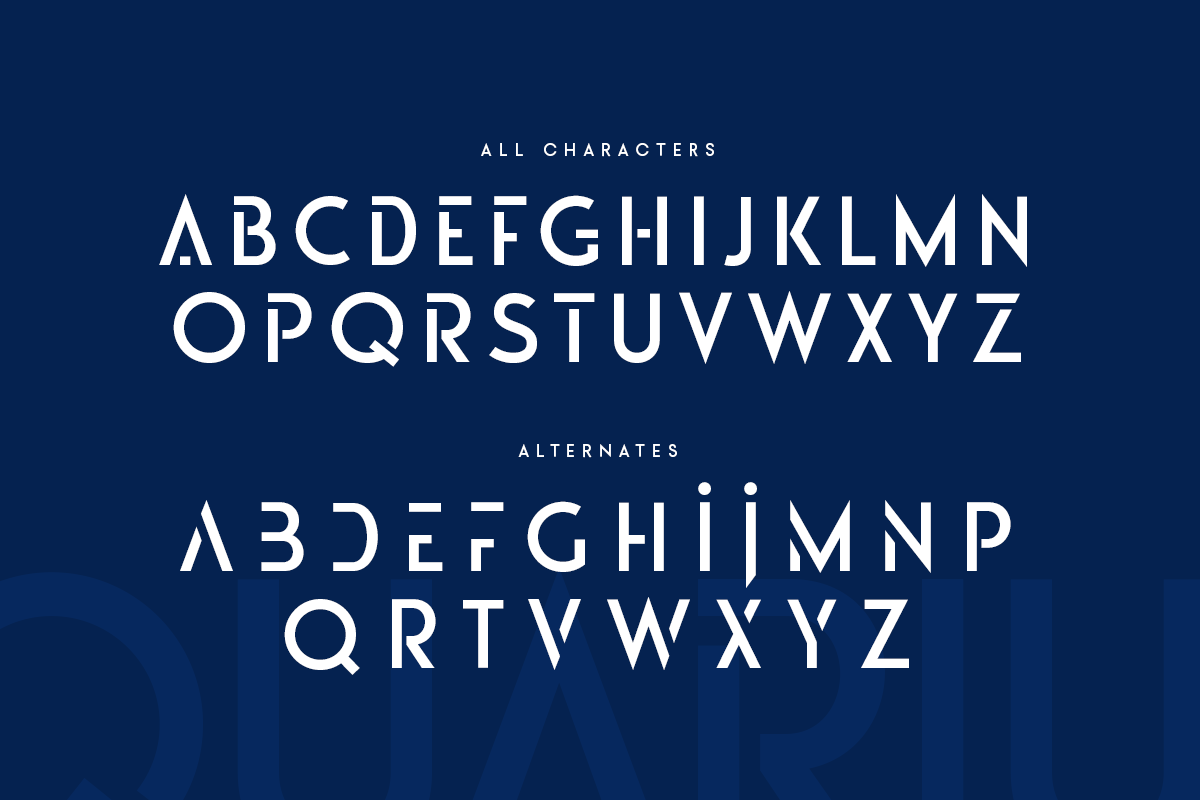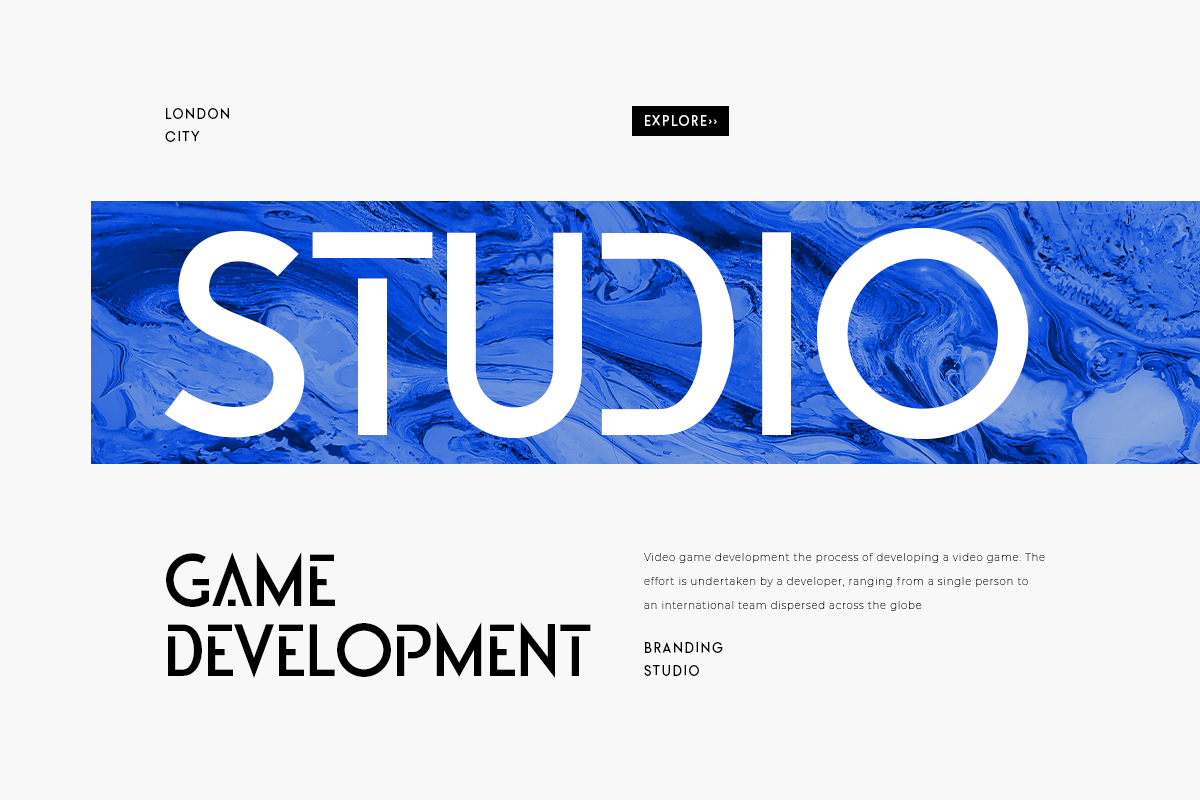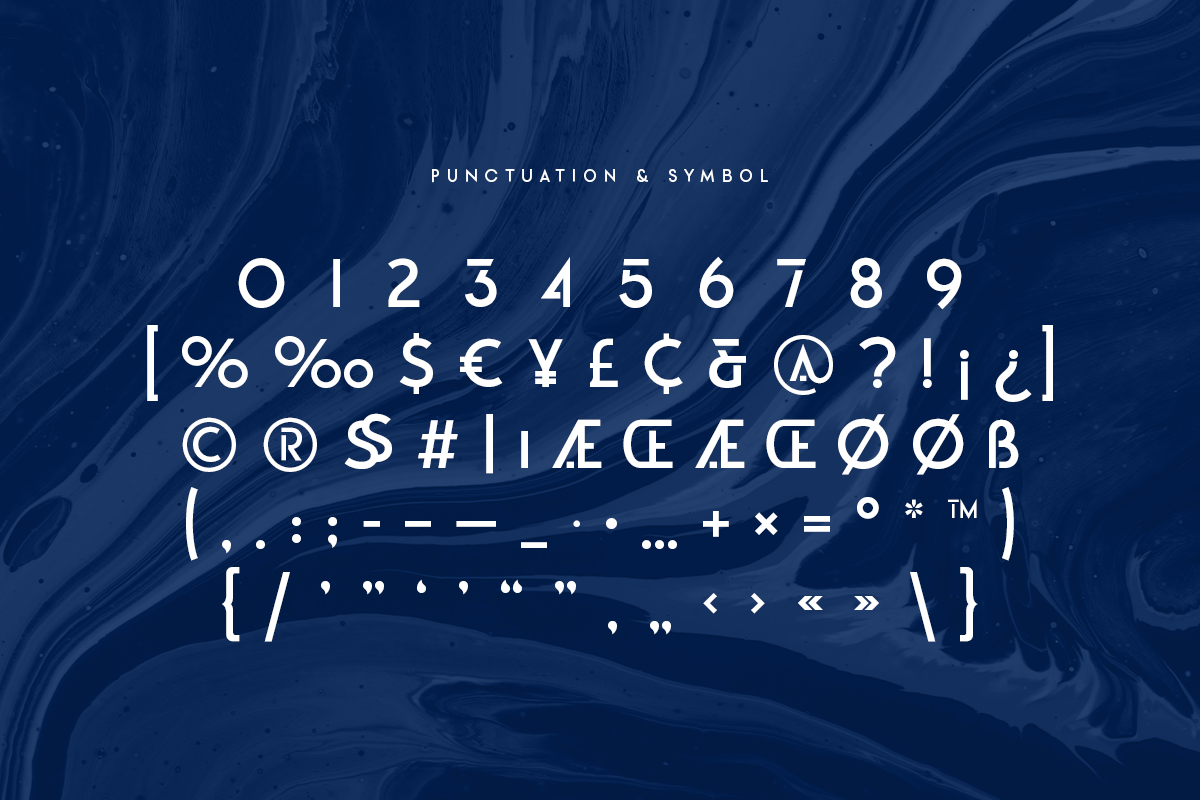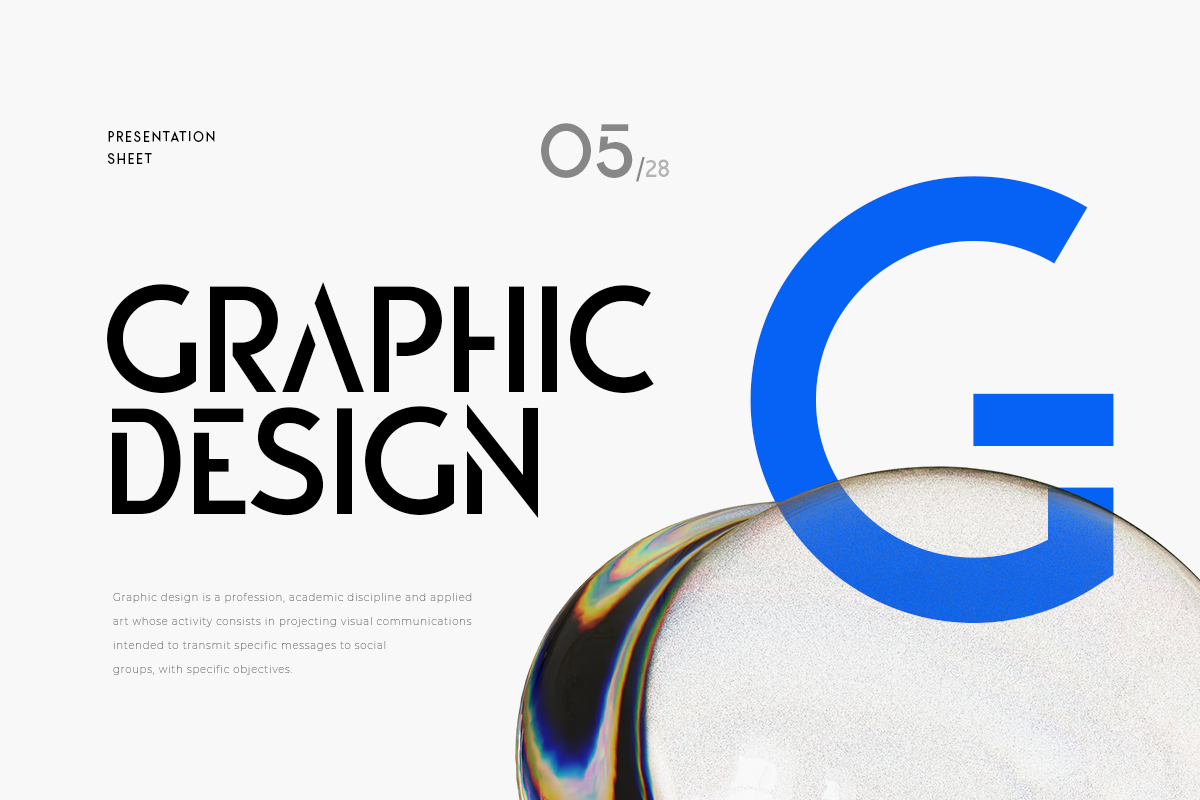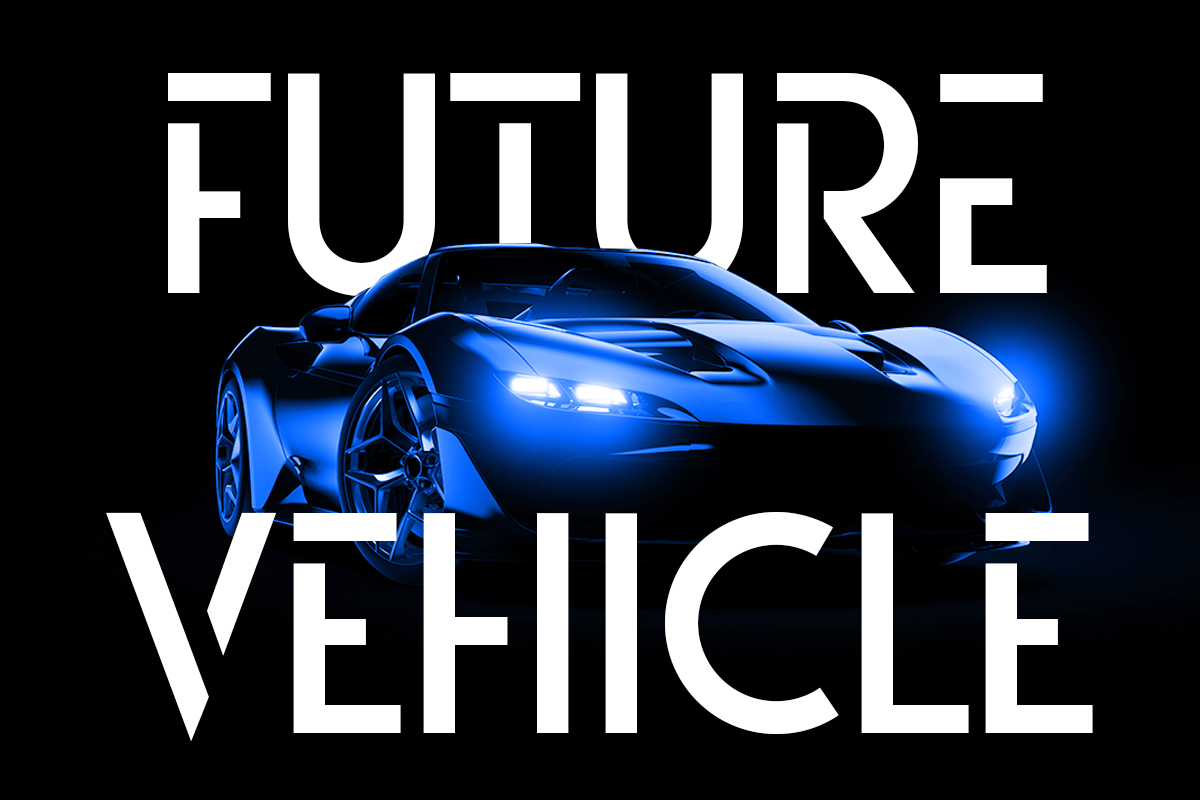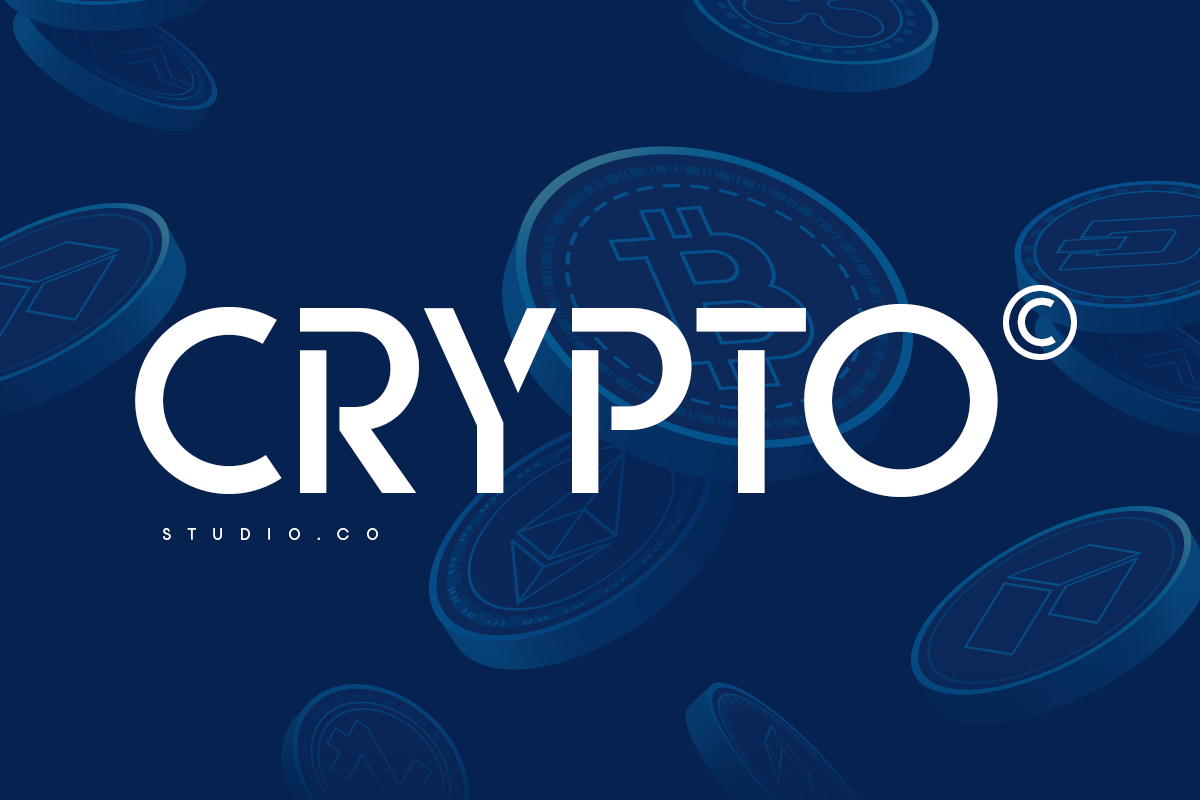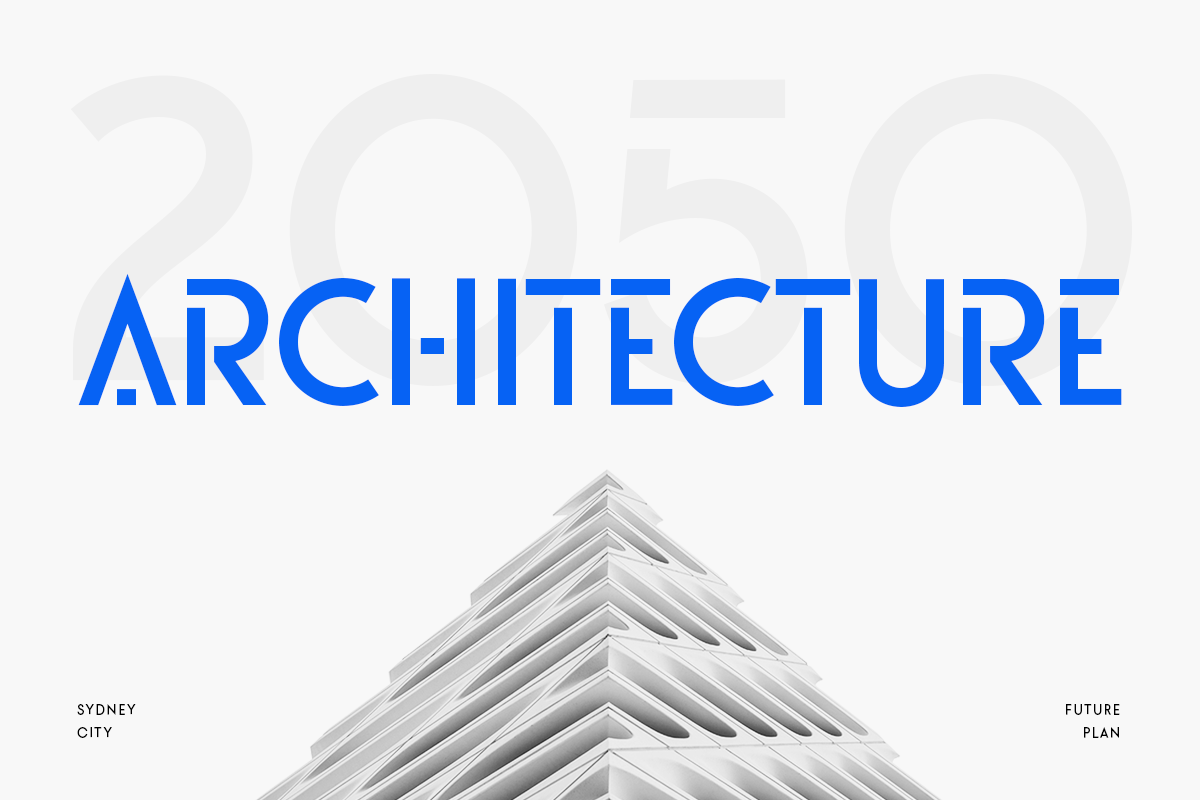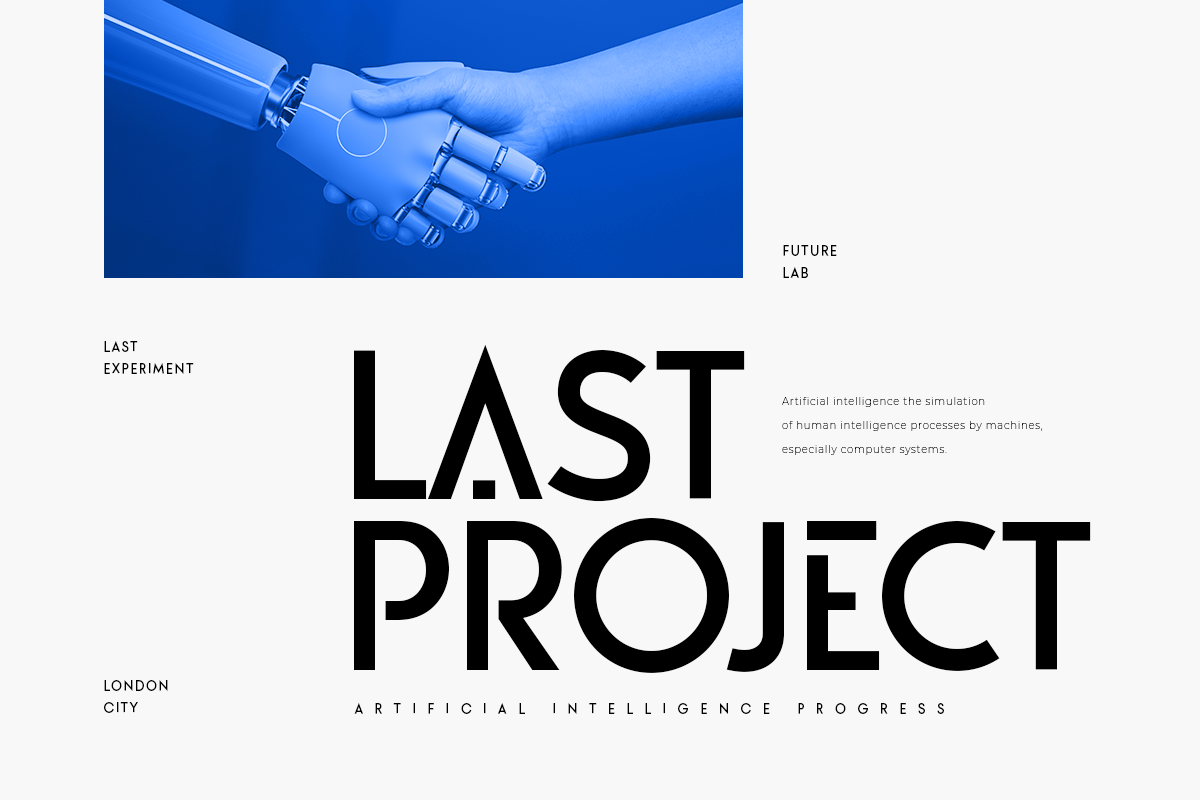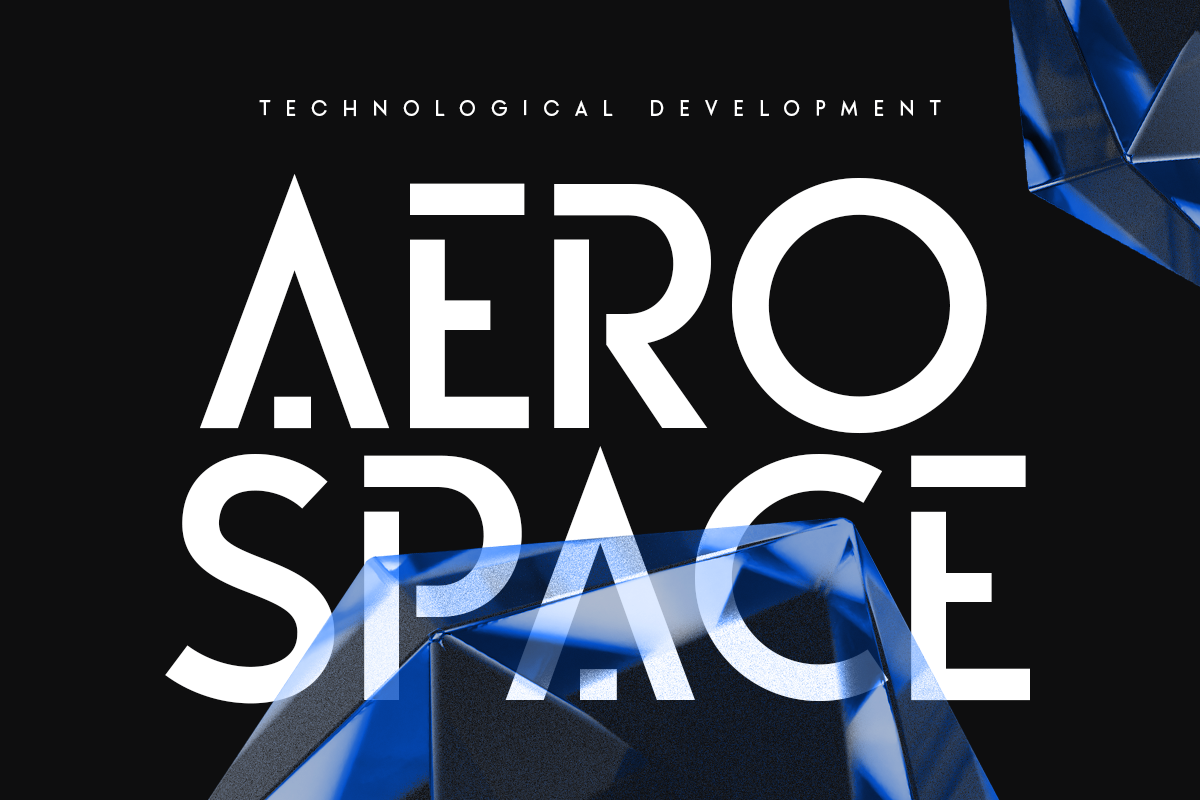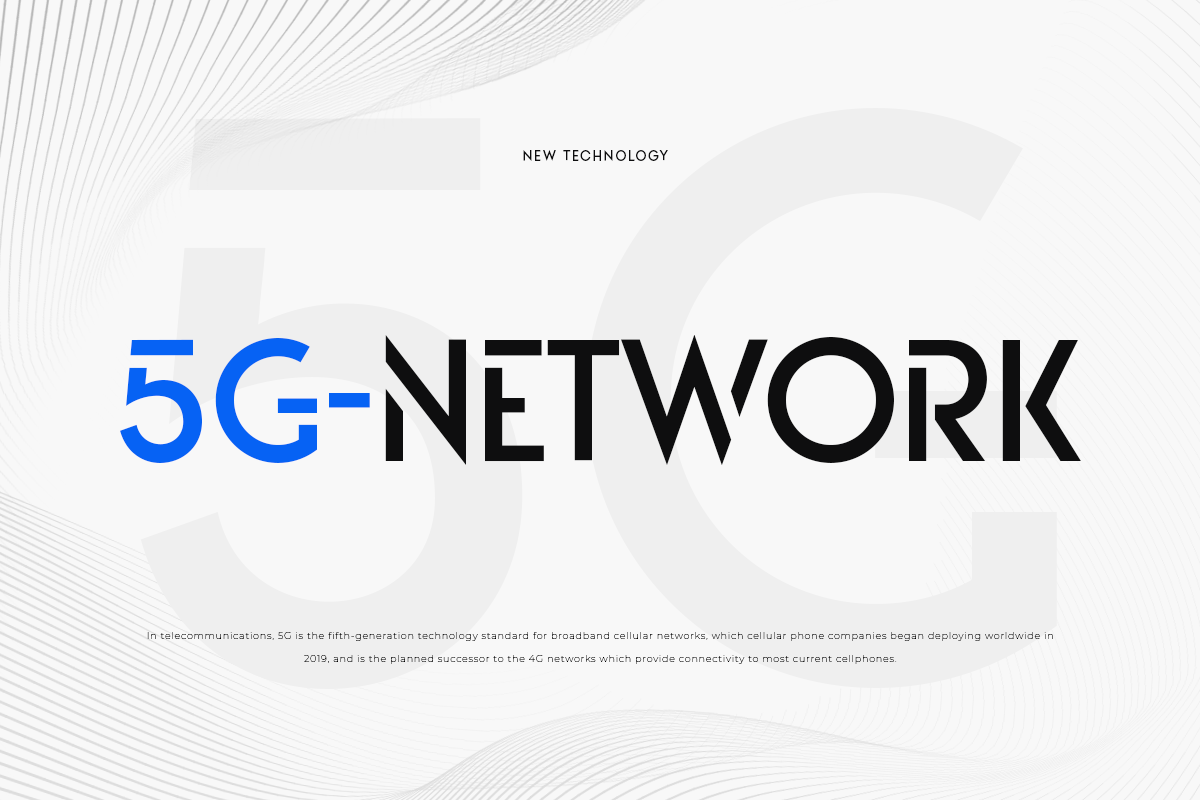
Aquarium - Modern Futuristic Font
Aquarium Modern Technology Futuristic Font is A Modern Technology Futuristic Font that we created special for Futuristic Technology needs, that you can combine to get any variations and unique shapes easily just in seconds with choose alternates of them. It is a sans serif display font with sharp shape that perfect for technology branding projects, logo, wedding designs, social media posts, advertisements, product packaging, product designs, label, photography, watermark, stationery, and any projects, it makes with a high level of legibility.
- Character set A-Z -All Uppercase
- Stylistic alternates